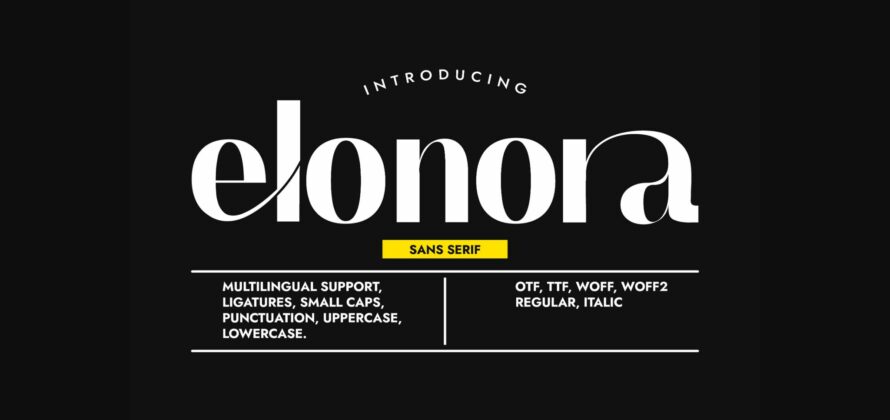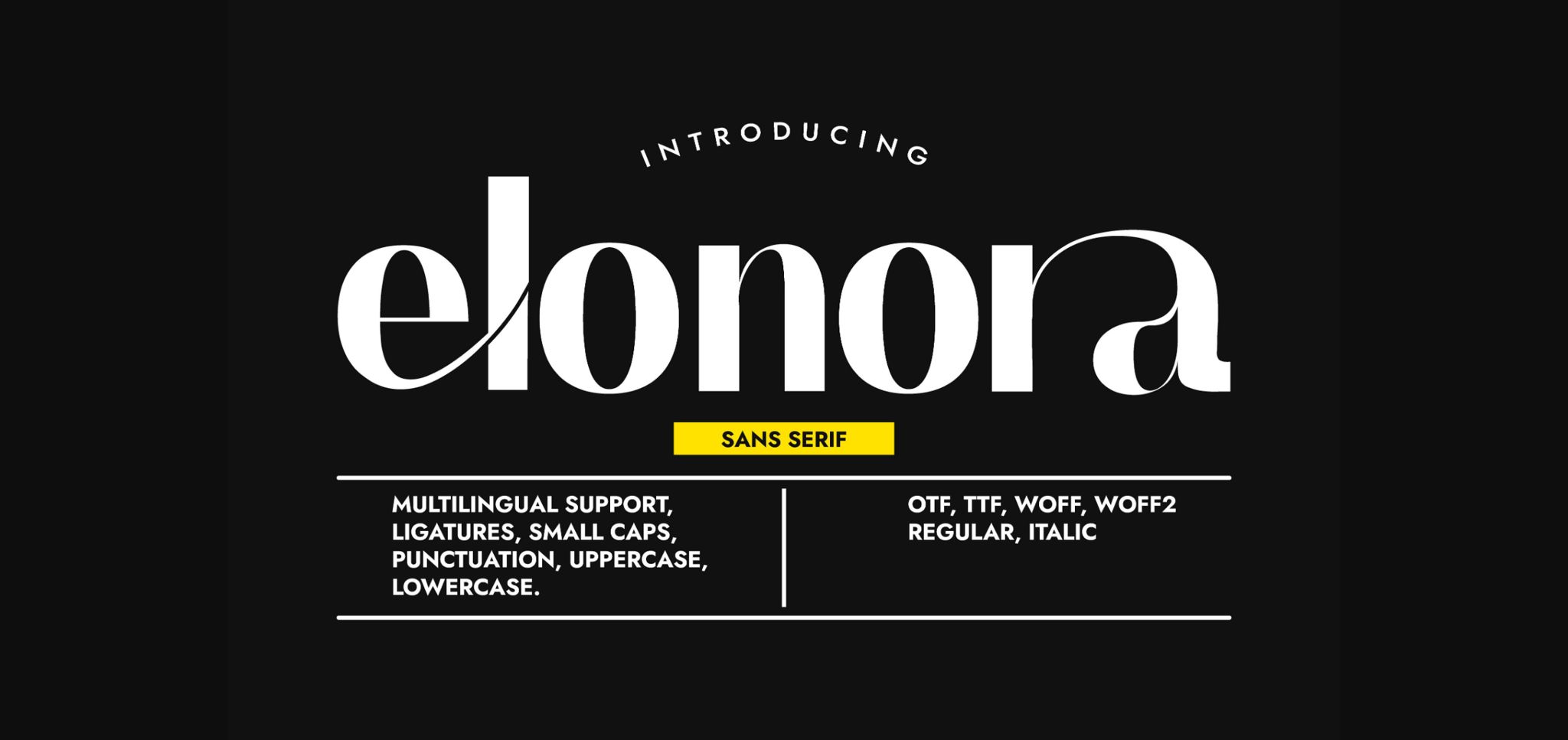
About Elonora Font
Elonora is a delicate, feminine, and elegant sans-serif typeface. Its simple aspect and perfectly curved construction render it a valid choice when you are designing elegant, luxurious, or feminine stuff. Use it in your creative ideas and notice how much power it holds inside.